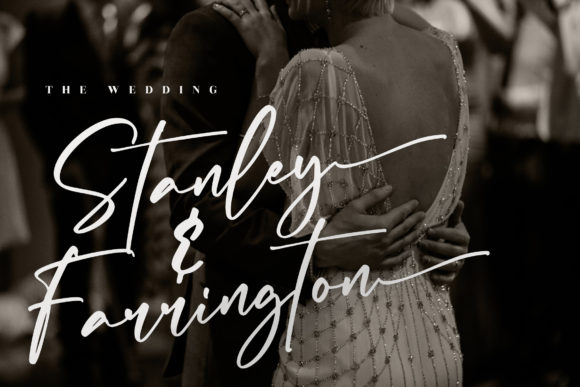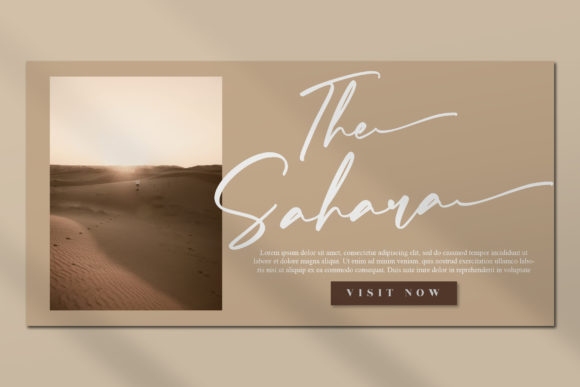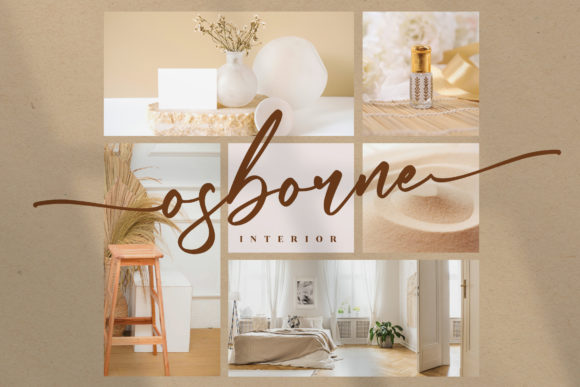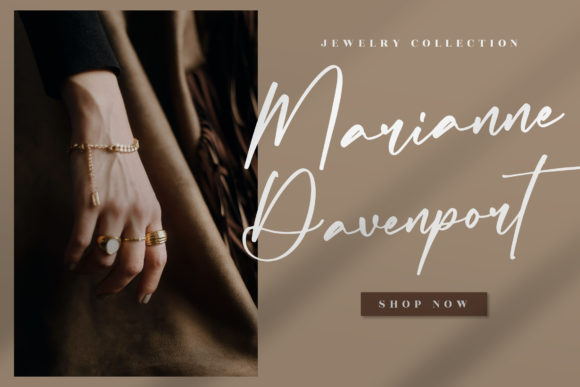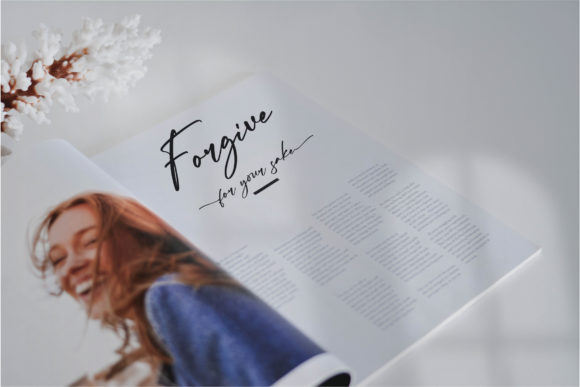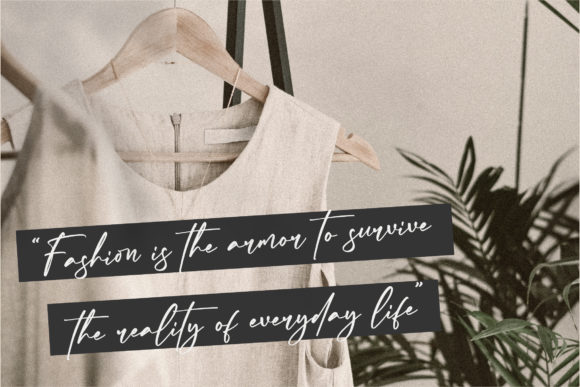
The Perfect Touch of Elegance: Introducing Abigaila Signature Font
Have you ever stared at a blank page, searching for the perfect combination of words to convey your message? That moment of creative paralysis is a familiar feeling for many designers. But what if you could find a font that not only sparks inspiration but also adds a touch of sophistication to your work?
Enter Abigaila Signature Font, a beautifully crafted handwritten font that effortlessly blends classic calligraphy with modern flair. With its elegant curves and precise strokes, this font is sure to elevate your designs and leave a lasting impression. As a valuable addition to any designer’s toolkit, Abigaila Signature Font offers a level of versatility and sophistication that’s hard to find in other fonts. Its PUA encoding allows for seamless access to all glyphs and swashes, making it a joy to work with.
Abigaila Signature Font Key Features
- Unique Characteristics: Distinctive handwritten style with elegant flourishes, making it perfect for signatures, quotes, and personal branding.
Abigaila Signature Font Review
I recently had the chance to work with the Abigaila Signature Font, and I’m excited to share my thoughts with you. Overall, I found it to be a beautiful and elegant font, perfect for creating a sophisticated and professional look.
- Elegant script style – The Abigaila Signature Font features a stunning script style that’s reminiscent of handwritten calligraphy.
- High-quality rendering – The font renders beautifully on various devices and screen sizes, making it ideal for digital use.
- Easy to customize – The font is highly customizable, allowing you to adjust the size, color, and other settings to suit your needs.
- Limited font weights – While the font has a beautiful script style, it’s limited to a few font weights, which may not be suitable for all applications.
- No bold or italic options – Unfortunately, the font does not offer bold or italic options, which may be a drawback for some users.
While the Abigaila Signature Font has its limitations, I believe it’s a great choice for designers who want to add a touch of elegance to their work. With its beautiful script style and high-quality rendering, it’s perfect for creating invitations, certificates, and other formal documents.
Abigaila Signature Font is ideal for creating professional signatures, logos, and branding materials. It can also be used for creating custom typography for business cards, letterheads, and other marketing materials.